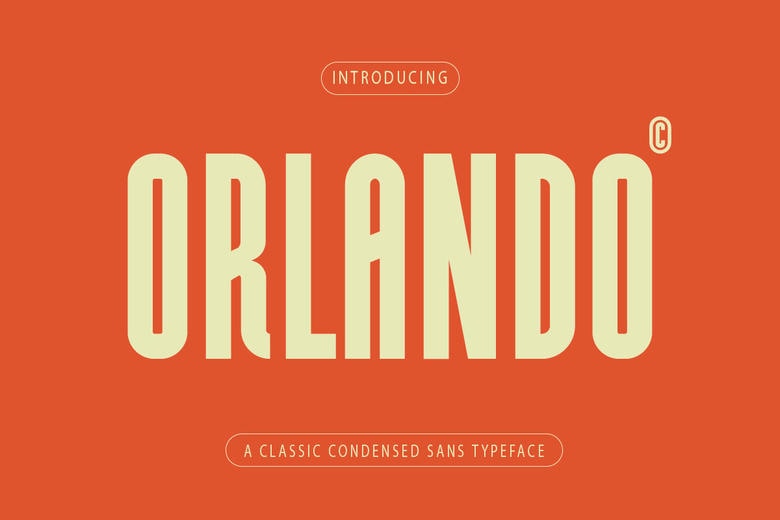
Orlando Font
Orlando is a sans-serif font that was specifically designed for making fonts bold, shapes vivid and appropriate for use in a display font in the contemporary world. The main types should be of single weight, and easily legible and calligraphic in appearance.
The logotype and their thickness make them suitable for logo design, packaging, magazine and newspaper, advertising, website design, book covers, apparels, branding and many others.
Orlando Sans Serif Font